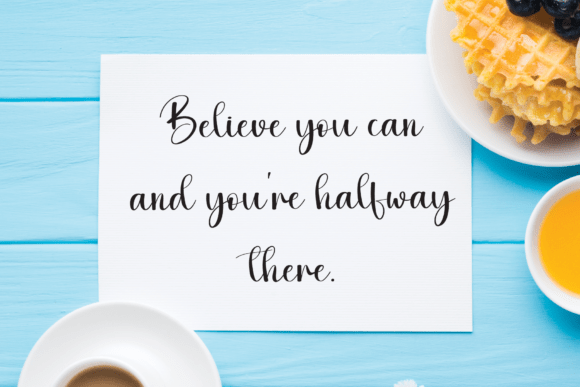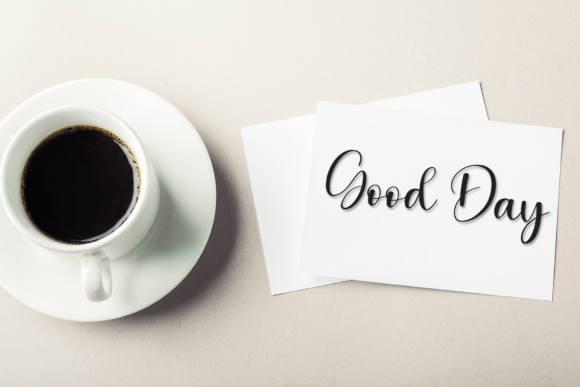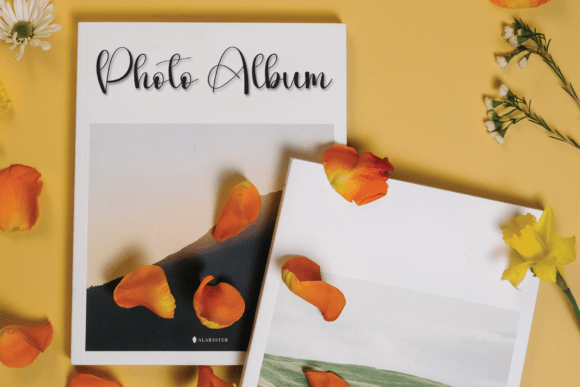
Introduction to Santacute Font
As you sit down to design your holiday projects, the pressure to create something truly special can be overwhelming. You’ve got a vision, but the right words just aren’t coming together. That’s when the magic happens – you stumble upon the perfect font, and suddenly, your creative juices start flowing. For many designers, that perfect font is the Santacute Font, a stunning handwritten script that exudes elegance and sophistication.
With its fluid, sweeping strokes and delicate loops, the Santacute Font is the ultimate design resource for any creative project. Whether you’re crafting wedding stationery, holiday invitations, or high-end festive branding, this versatile font is sure to impress. And with PUA encoding included, you can easily access all special characters and decorative elements without additional software – a true game-changer for designers.
Key Features of Santacute Font
• High-quality, unique font design suitable for creative projects, making it a valuable design resource.
• Unique characteristic: distinctive, elegant letterforms with a touch of modern flair, ideal for adding a creative twist to your design projects.
Honest Review: Santacute Font
I recently stumbled upon the Santacute Font and was excited to give it a try in my latest creative project. As a designer, I’m always on the lookout for high-quality design resources that can elevate my work.
• ✨ High-quality typography: The Santacute Font has a beautiful, elegant design that adds a touch of sophistication to any layout.
• ⚠️ Limited language support: The Santacute Font only supports a limited number of languages, which may be a concern for designers working on international projects.
• ⚠️ Not ideal for bold text: The font’s design may not be the best choice for bold or large text, as it can become difficult to read.
Overall, I’m impressed with the Santacute Font and would recommend it to designers looking for a high-quality, elegant typography option. While it may have some limitations, it’s an excellent addition to any design resource library.
Santacute Font
Tips for Getting the Most Out of the Santacute Font
For the best results, use the Santacute Font on a transparent background to give your design a clean and modern look. You can also experiment with different font sizes and styles to create a unique visual effect.
The Santacute Font is ideal for a variety of creative projects, including logos, business cards, and marketing materials. Its high-quality design and versatility make it a great design resource for any project.